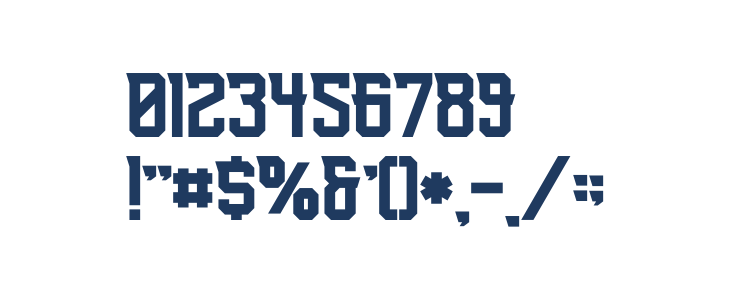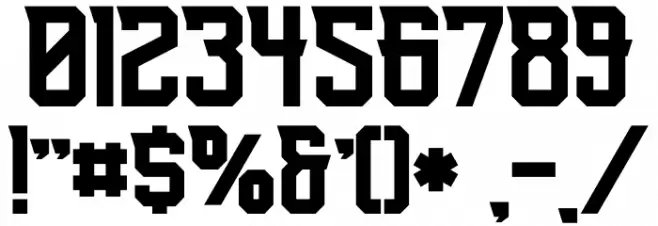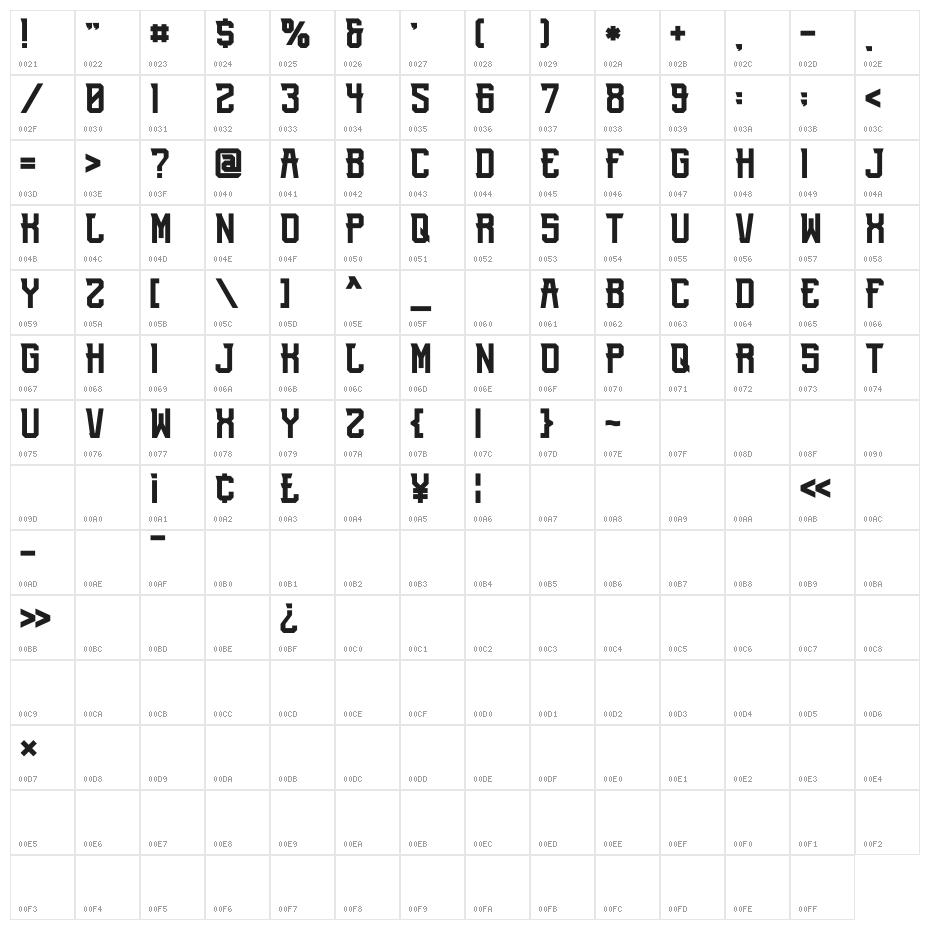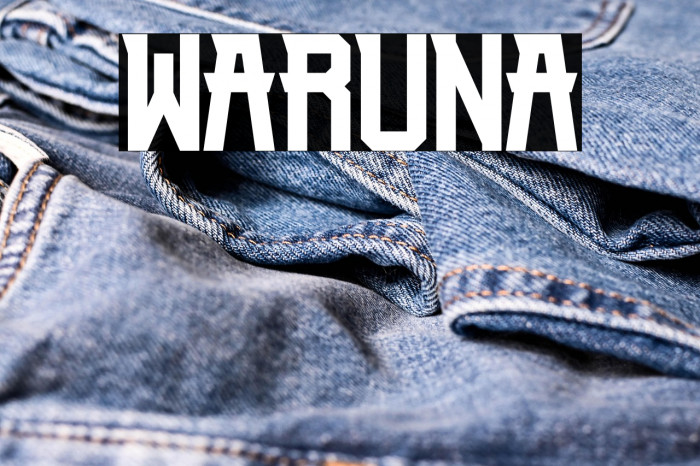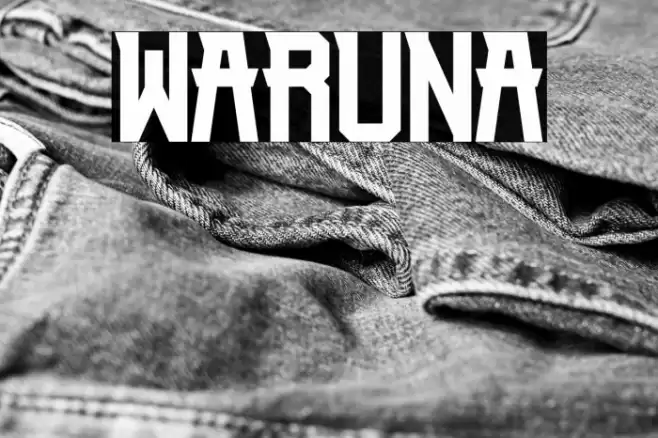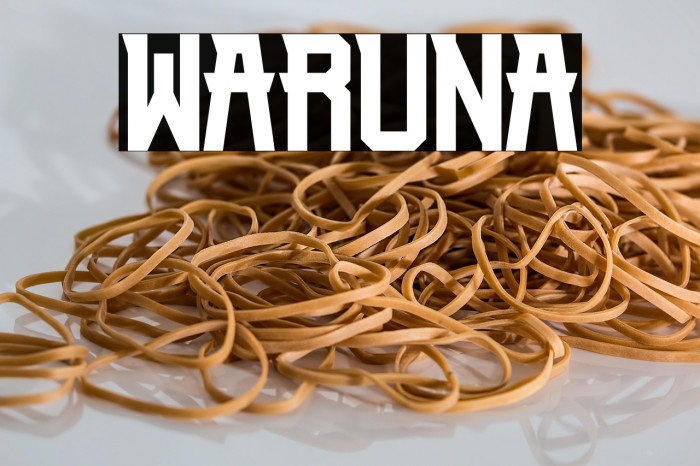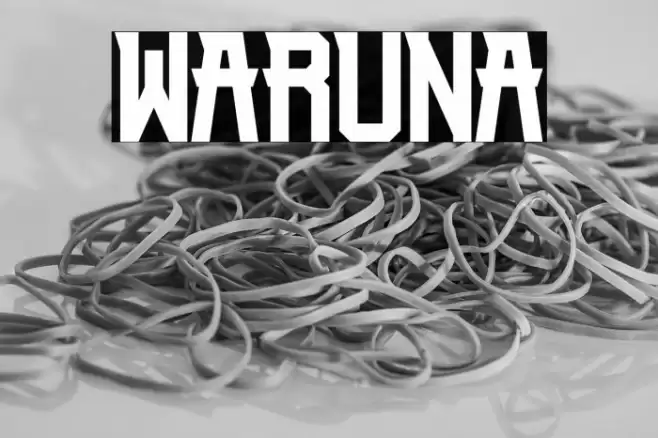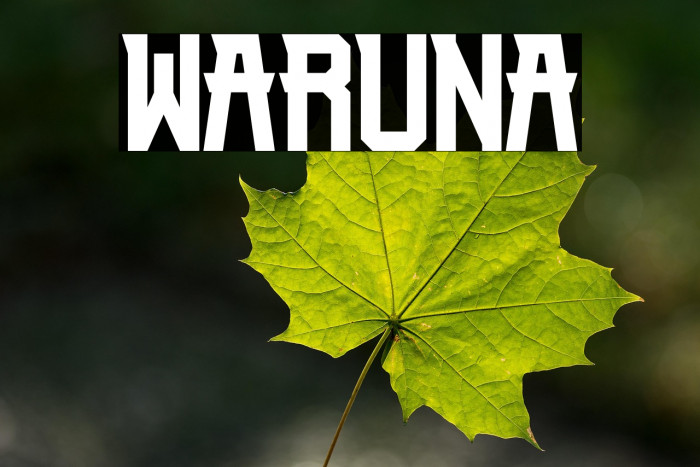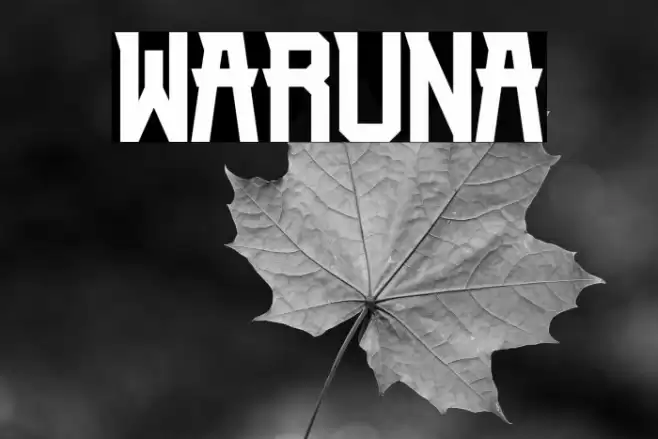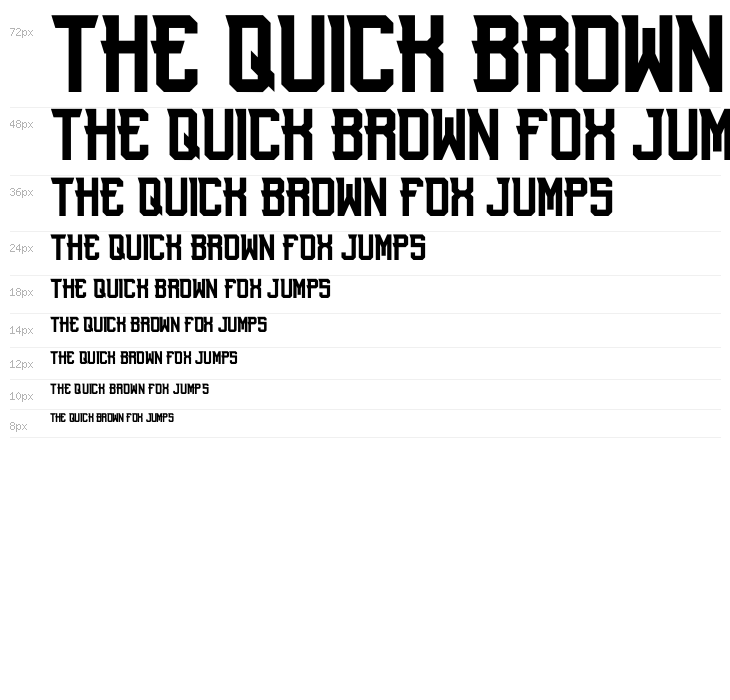
Waruna Font
Waruna Description
This font features a bold, geometric design with a strong presence. The characters are constructed with sharp angles and straight lines, giving it a modern and industrial feel. The uppercase letters are particularly striking, with a uniform height and width that create a cohesive look. The numbers and special characters maintain the same boldness and angularity, ensuring consistency across all glyphs. This font's distinct style makes it ideal for projects that require a strong visual impact.
| Proposed Projects | Ideal for branding, poster design, and headlines that require a strong visual impact. |